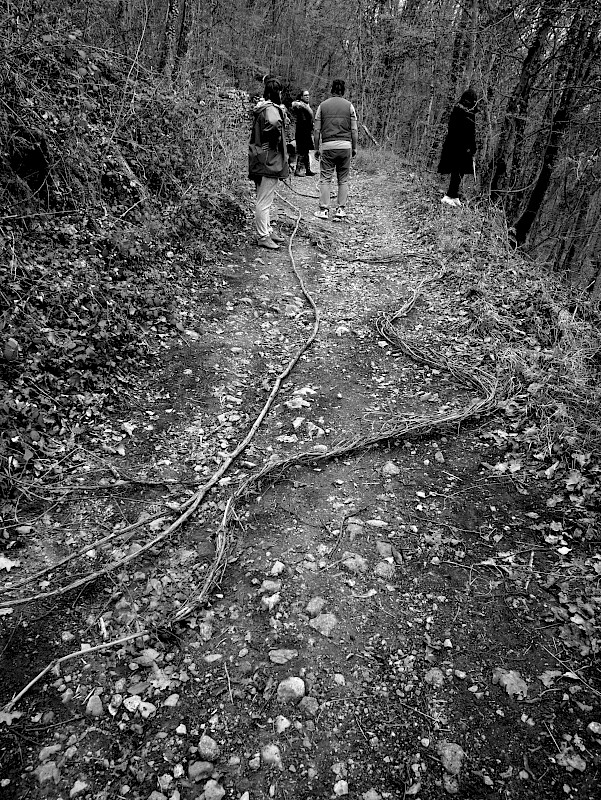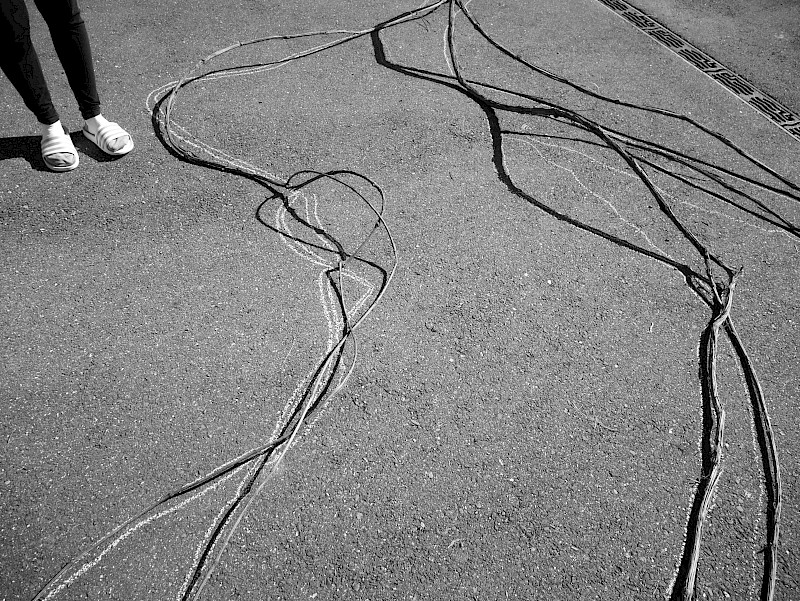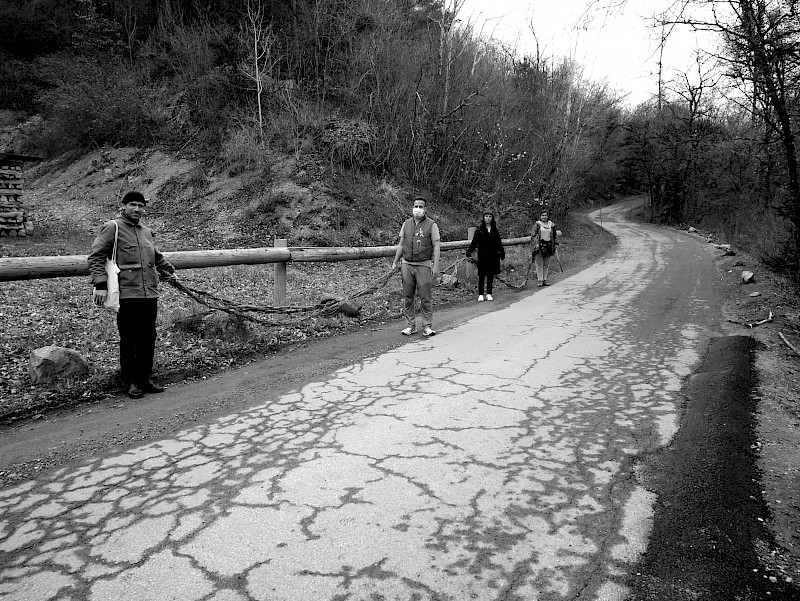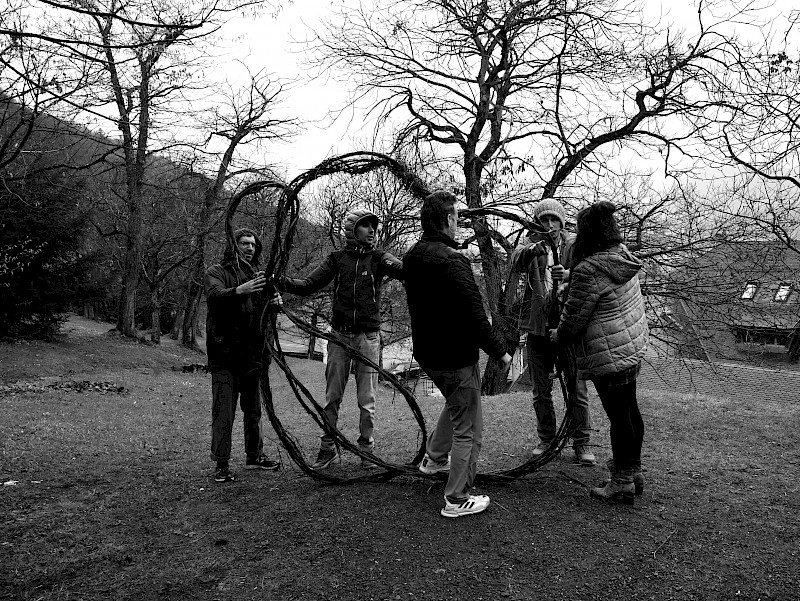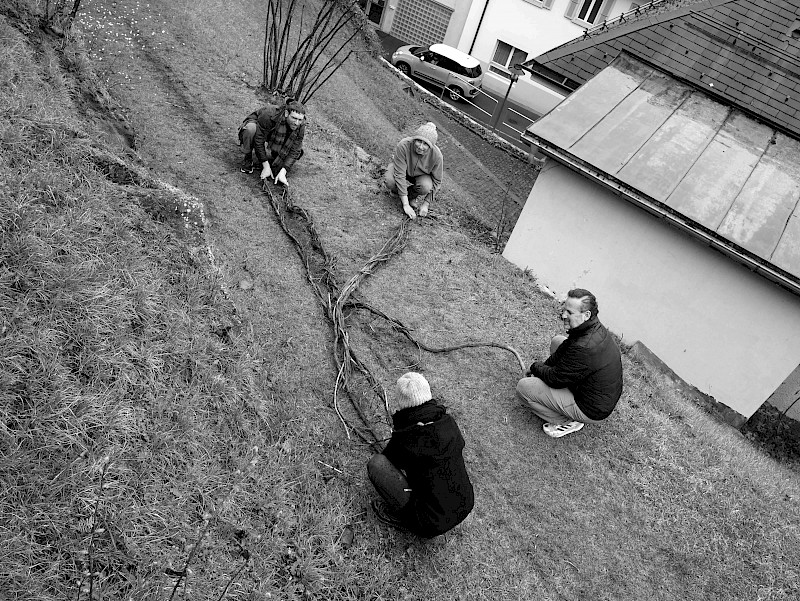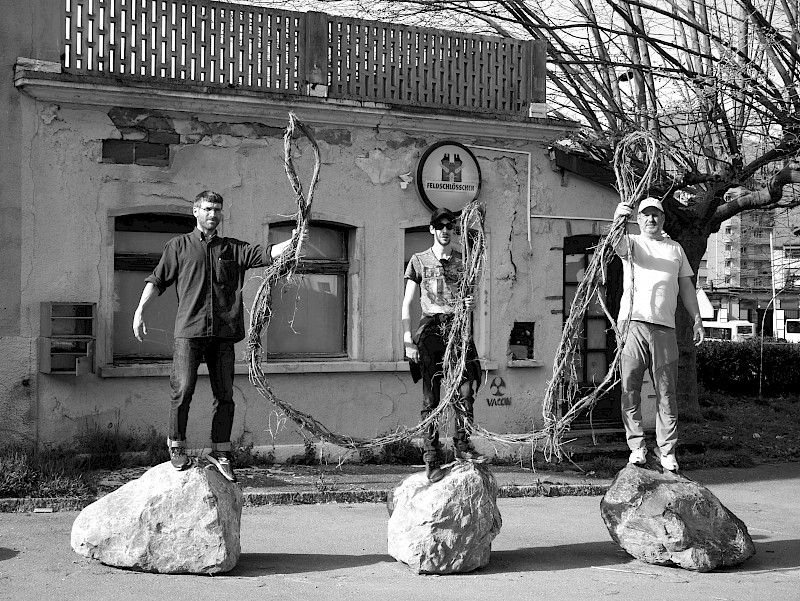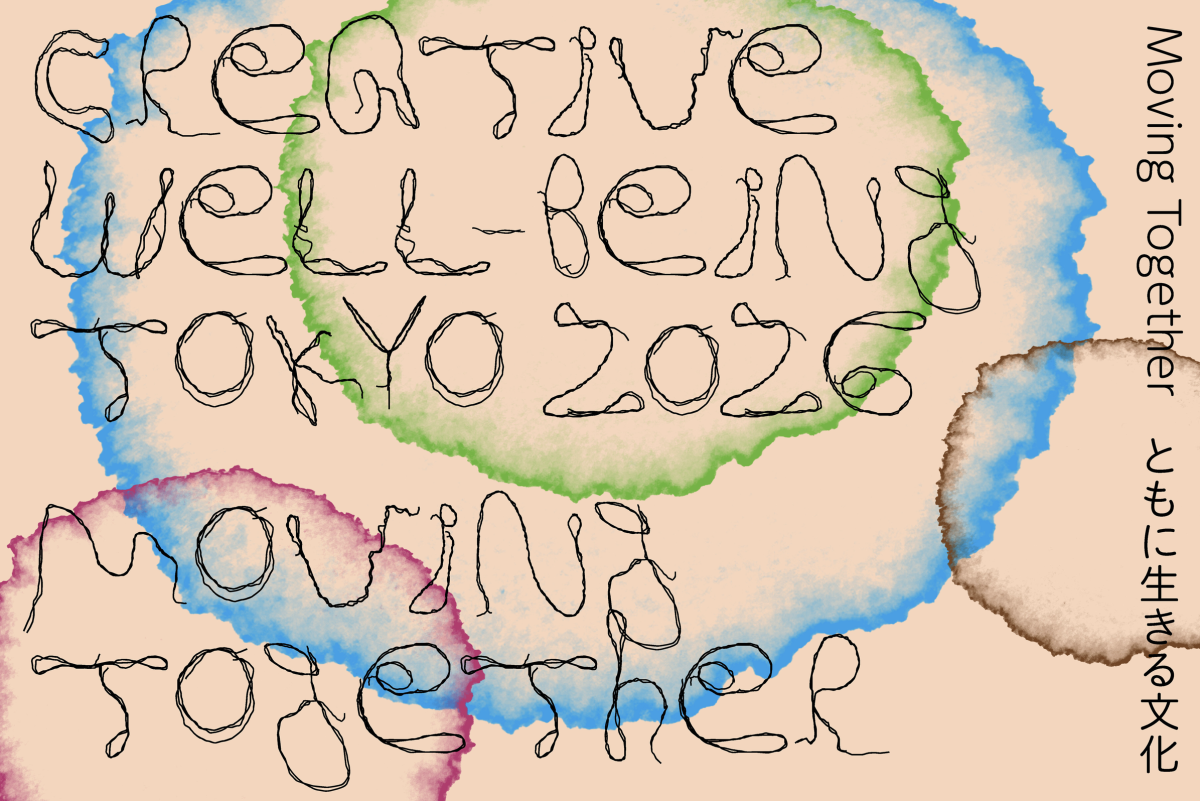
While having workshops with patients at a psychiatric hospital in Switzerland, artist François Dey together with the patients experimented with different forms of being, of collaborating together and creating a typeface with plants. The hospital site itself a public botanical alike garden is surrounded by mountains and a forest which used to be a granite quarry. Early on, the geological society had asked for a cessation of mining activities on the erratic rocks brought by the ice 15.000 years ago. The vegetation has now taken over the ruins of pathways and walls build in order to reach and dispatch the granite stones.
During one of their first walks François grabbed a liana and brought it back to his studio. Another time they went on harvesting them together and started braiding what they later figured were wild clematis plants. This then became one of the materials they experimented with. Pulling the long stretched 12 meters long liana forward. By bending they formed letters together. The alphabet seen as a structure we all shared as well as a platform. Reflections came later about why we thought we were allowed to harvest this plant which was denominated as invasive but started to look more and more human. The plant uses support of other trees in order to grow. In April its flowers pop up on the top of other trees. Finally, the group started working with brooms as well, doing dance choreographies, drawings and they formed the numbers for this font.
François Dey has published his research material of this project in a small booklet Carnet de Residence #5, stencil printed by Erwin Blok.